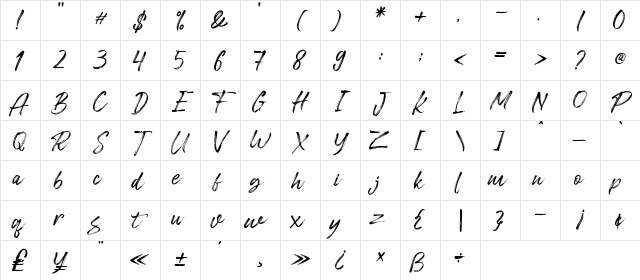
Freshline is a composed and adaptable typeface that performs quietly and consistently across a wide range of design contexts.
Pro Tip: Use Freshline in both headline and body roles to test its range before committing to a single application.